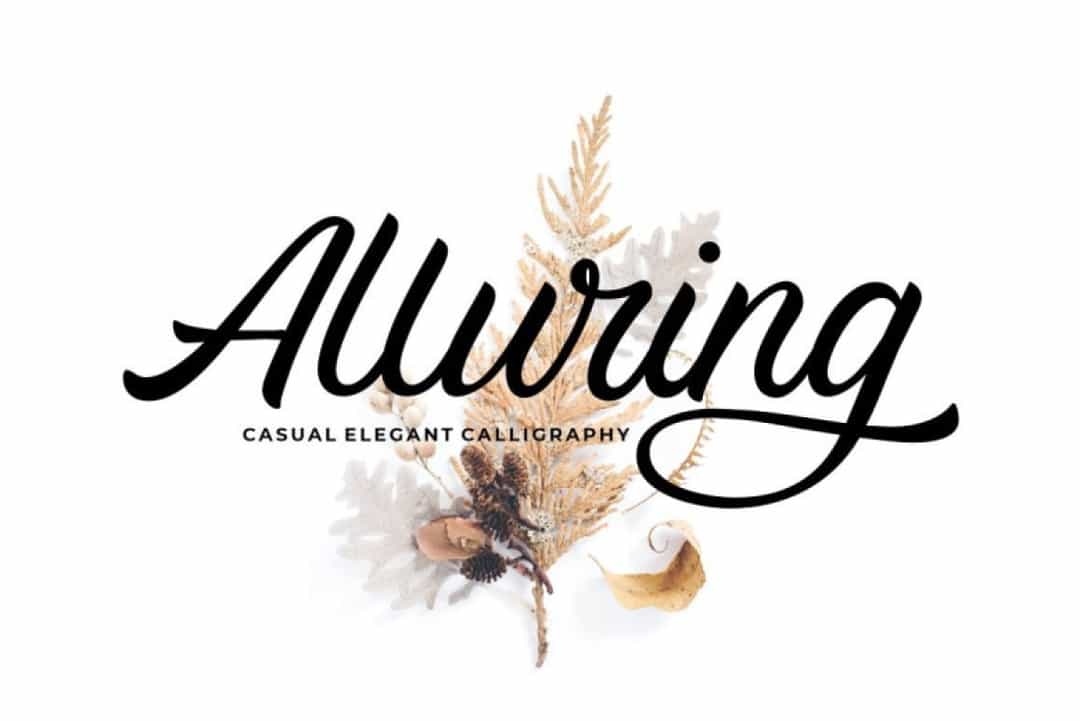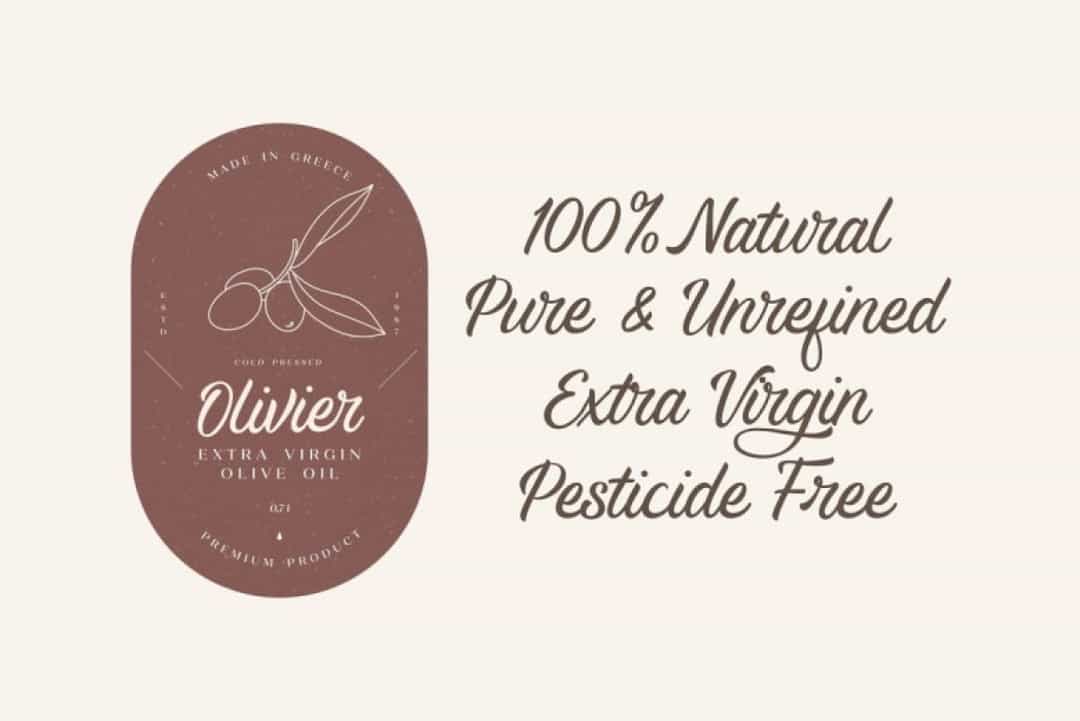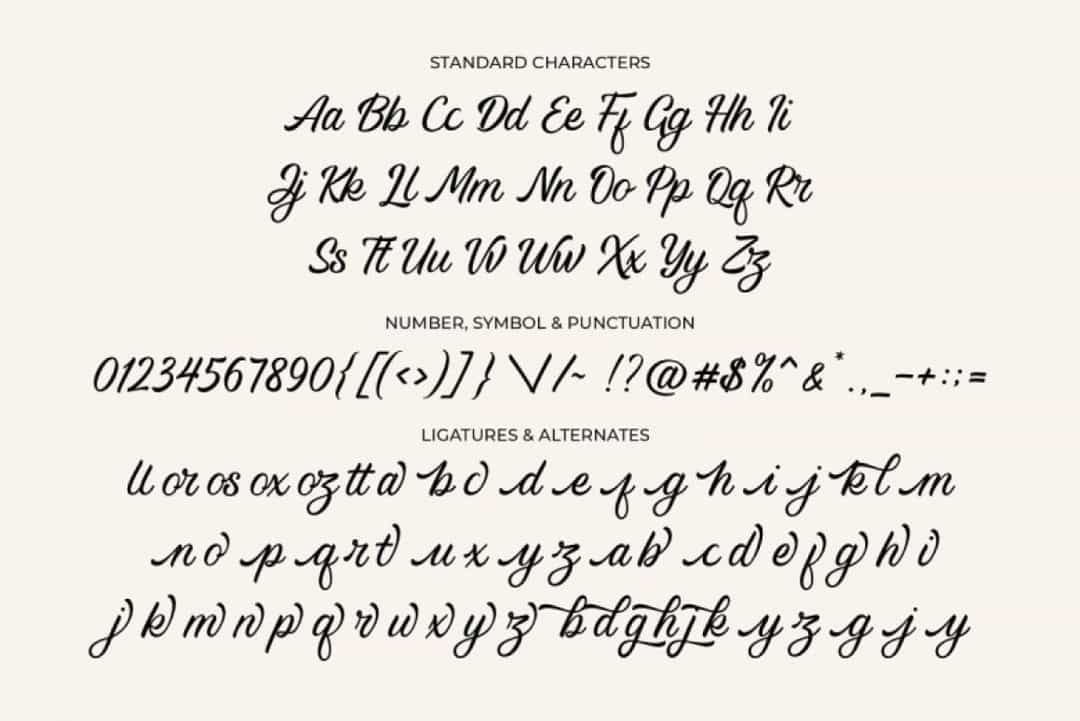
Alluring is a lightweight Calligraphy font which makes handwriting appear effortless. Featuring ligatures, alternate characters, numerals and punctuation as well as accents as well as multilingual support through international characters; Alluring offers effortless handwriting for effortless writing!